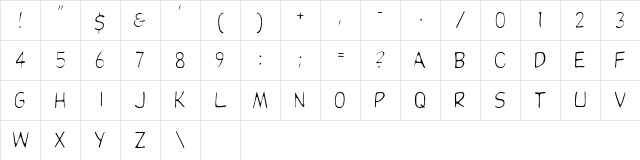
Dibs Display Caps Light SSi Light
Design Context for Dibs Display Caps Light SSi Typeface
Dibs Display Caps Light SSi brings ornamental detail and strong personality to headlines and identities, where visual impact matters more than quiet functionality. The delicate stroke weight brings airiness and refinement to layouts.
Font Pairing: Pair with a clean neutral sans-serif for body copy to let Dibs Display Caps Light SSi's character lead without overwhelming the composition.
Pro Tip: Treat Dibs Display Caps Light SSi as the centrepiece of your typographic hierarchy. One strong heading set in a decorative face can carry an entire layout.